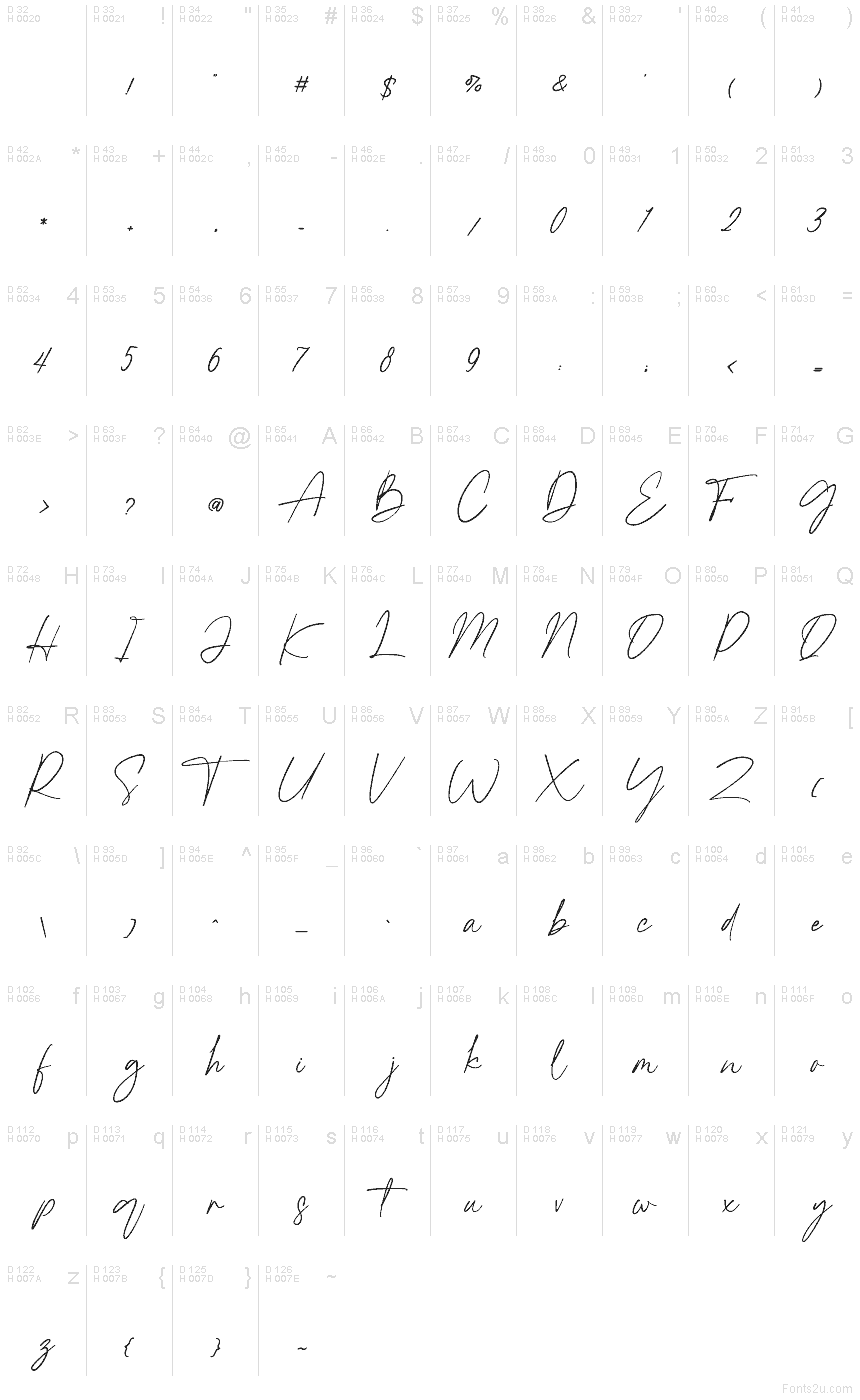
Goldesty
Goldesty font from Muwatta Studio is a light handwritten typeface that a signature-like and fluid style. Its strokes are gentle, yet expressive and they include curves and angles with well-balanced designs. Goldesty is all about casual elegance and personal touch expressed in a contemporary approach.
The free calligraphy font can be used in invitation cards, clothing items design, branding projects, name logo designs (especially signatures!), social media advertisements, online posts among many other uses. Title headings for magazines also stand as fitting applications for the beautiful typeface that is Goldesty.